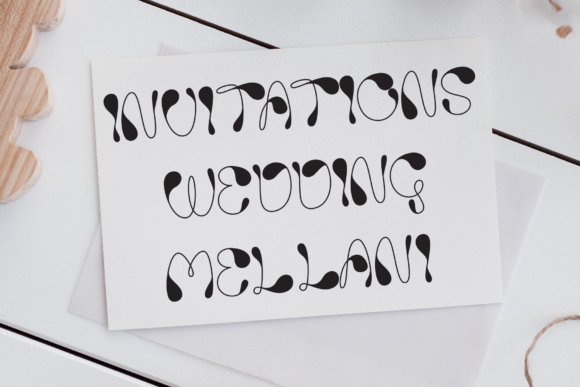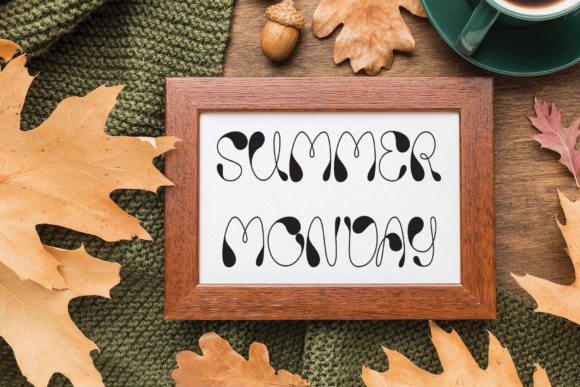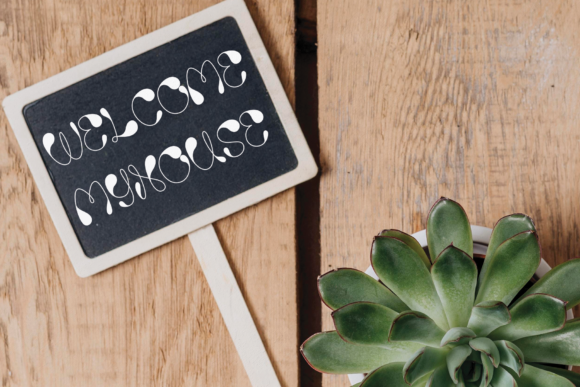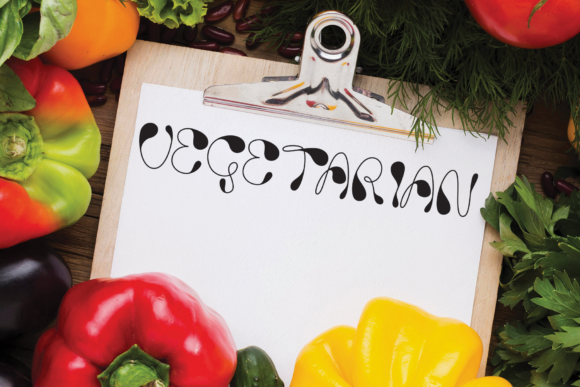
The Perfect Blend of Creativity and Style
As a designer, have you ever found yourself stuck in a creative rut, searching for that one element to elevate your project from good to great? Maybe it’s the perfect color palette, or a unique texture that adds depth. For me, it’s often the typography – the way a well-chosen font can transport a message or evoke a mood.
That’s where the Banana Font comes in – a beautiful, flowing handwritten font that’s perfect for adding a touch of whimsy and personality to your designs. Whether you’re creating wall hangings, wedding invitations, or social media post logos, this font is sure to make a statement.
As a valuable addition to any designer’s toolkit, the Banana Font offers endless possibilities for creative expression – and its versatility is just one of the reasons why it’s become a favorite among designers and artists alike.
Banana Font Key Features
- Unique Characteristics: Banana Font features a unique, hand-drawn design with a playful and approachable feel, making it perfect for creative and informal projects.
- Style Variations: Banana Font comes in a range of styles, including regular, italic, bold, and bold italic, offering flexibility and versatility for designers.
Banana Font Review
Overall, I was excited to dive into the Banana Font and see what it had to offer. As a designer, I appreciate unique and quirky fonts that can add personality to a project.
- The Banana Font has a playful and fun feel that’s perfect for creative projects or branding that wants to stand out.
- The font’s varied line heights and irregular shapes create a sense of movement and energy that’s engaging to look at.
- The Banana Font comes in a range of weights, from light to bold, which gives designers flexibility in how they use it.
- The font may be too playful for more formal or professional projects, where a more traditional or conservative font would be more suitable.
- The irregular shapes and varied line heights can make the font difficult to read at smaller sizes or in situations where clarity is crucial.
- The Banana Font may not be the best choice for projects that require a high level of precision or accuracy, such as technical documentation or financial reports.
Overall, I think the Banana Font is a great choice for designers who want to add some personality and whimsy to their projects. However, it’s not a one-size-fits-all solution, and designers should carefully consider the project’s goals and audience before choosing this font.
The Banana Font is perfect for:
- Playful branding and marketing materials.
- Children’s educational materials and activities.
- Whimsical wedding invitations and decorations.
- Fun social media graphics and posts.